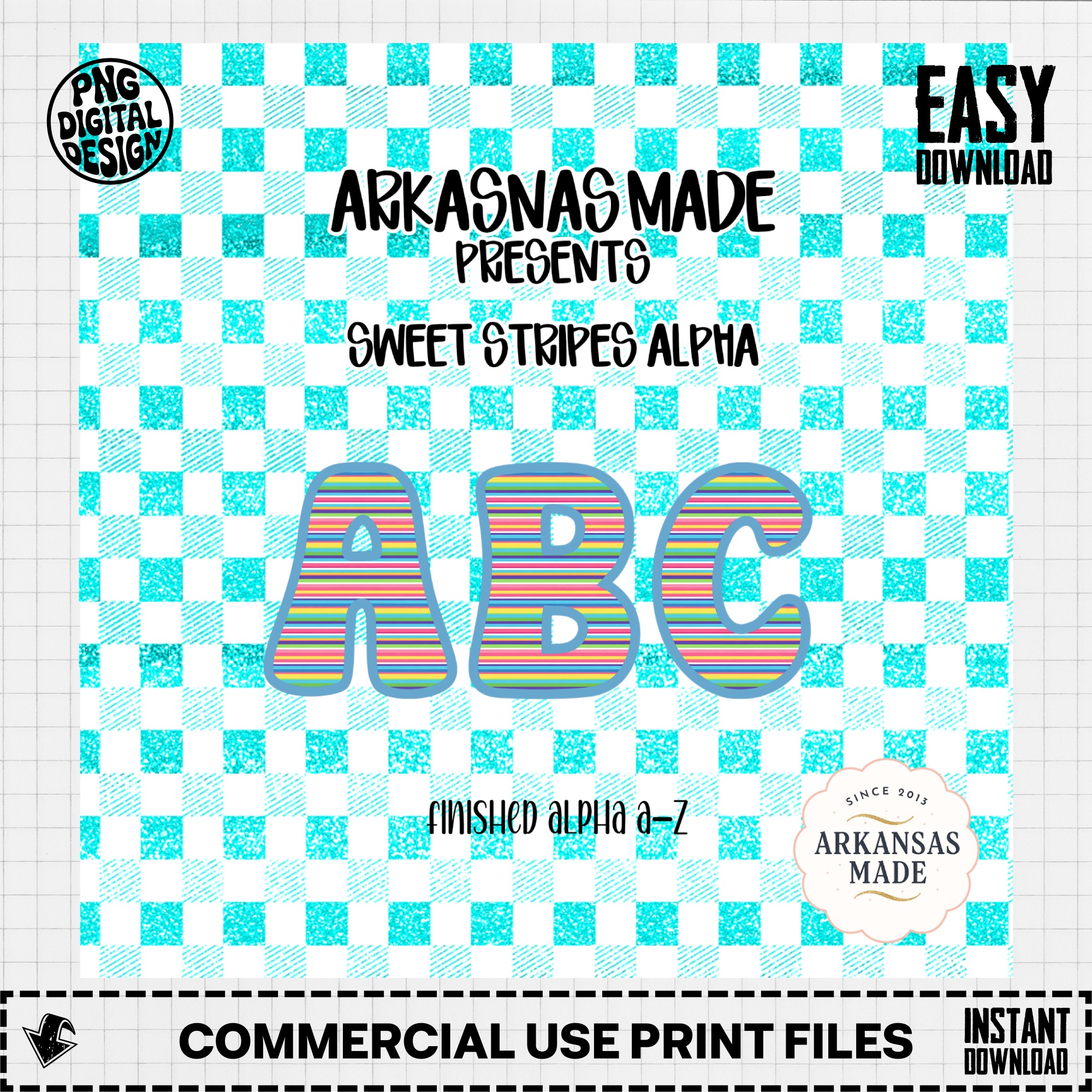
Elevate your creative projects with our vibrant Sweet Stripes Alpha PNG Digital Download. This complete alphabet set features eye-catching, rainbow-striped letters (A-Z) with charming rounded outlines, perfect for adding a pop of color to any design. Each letter is crafted against a delightful teal gingham checkerboard background, featuring both shimmering glitter and subtle striped textures. This versatile digital alphabet is ideal for a wide range of uses, from personalized items to educational materials.
* Full alphabet A-Z included for endless design possibilities.
* Colorful rainbow stripes and light blue outline for playful aesthetics.